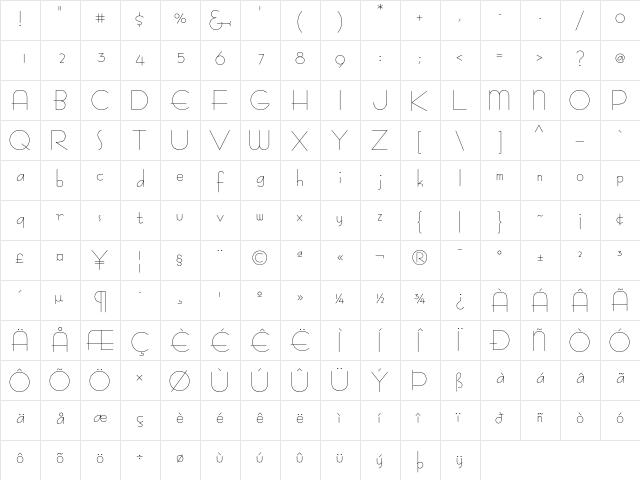
BernhardFashionICG Alt Font Preview
BernhardFashionICG Alt
Design Context for BernhardFashionICG Typeface
BernhardFashionICG takes a measured approach to typography — its balanced proportions and neutral character make it a reliable workhorse for both digital and print work.